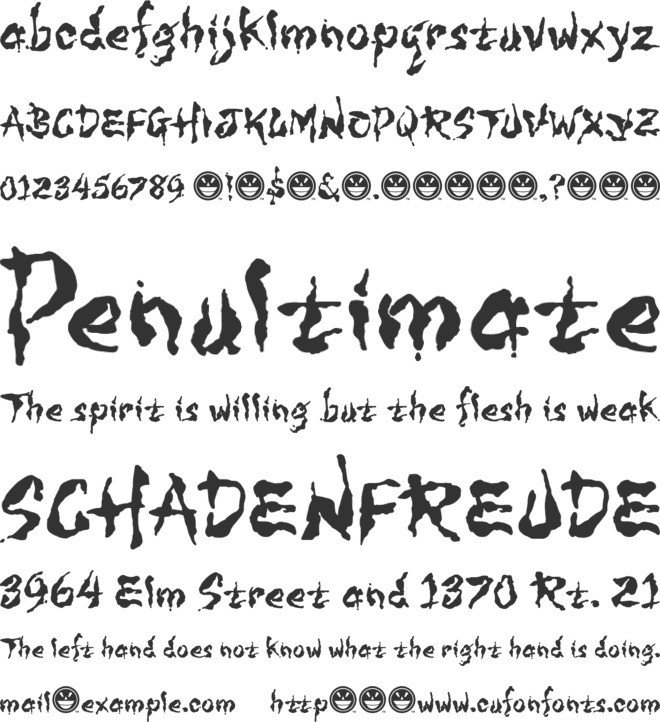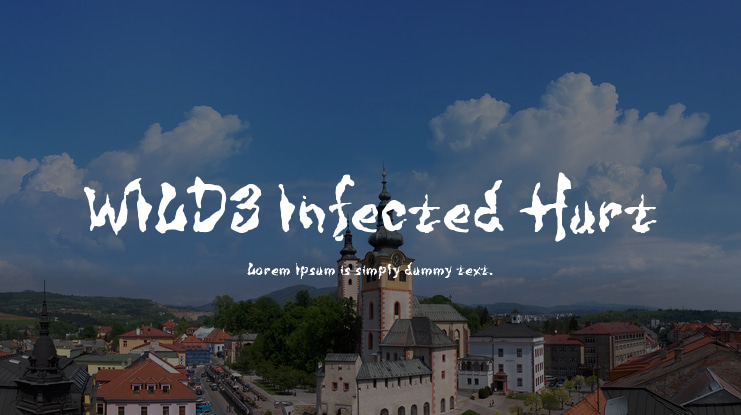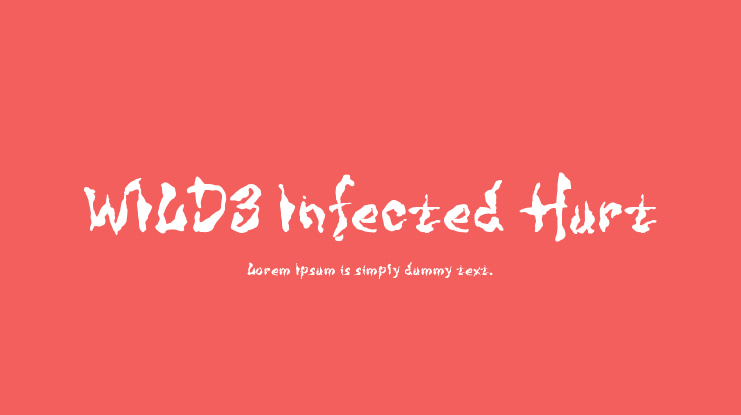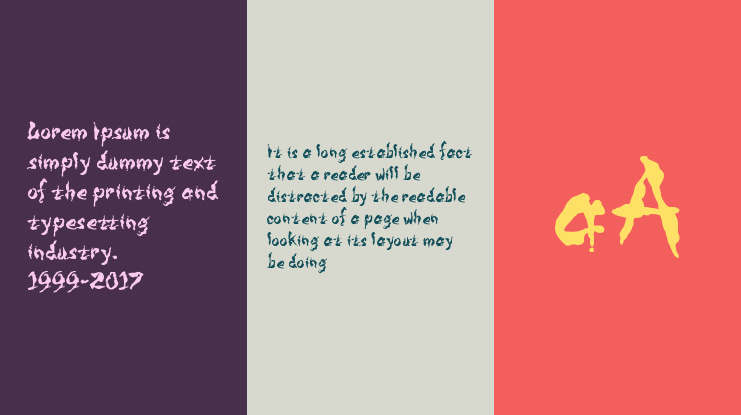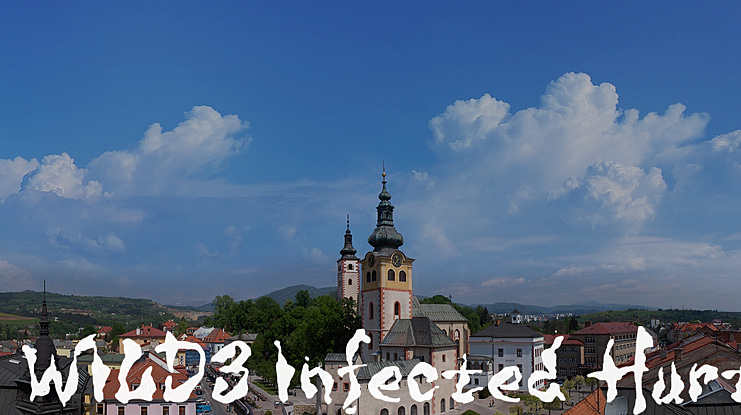
WILD3 Infected Hurt Font Family
Scrawled and scratched until it hurts, this face is an affliction turned infection--or is it just waiting for a ripe time to infest your font list? Might as well download it and try it out. Infected Hurt never goes away--not silently, of course.